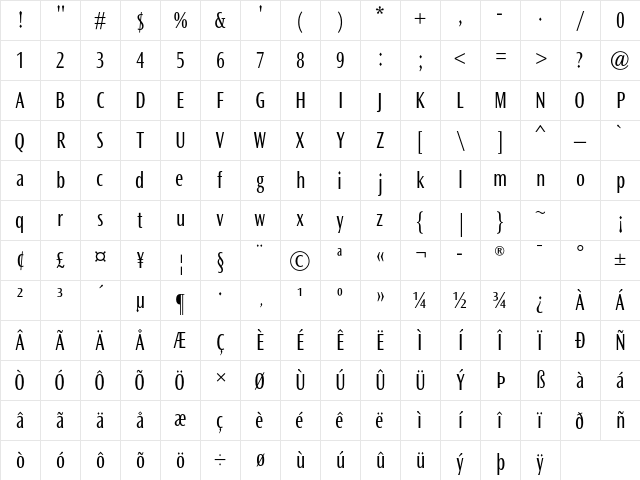
Ocean Sans MT Std Book Cond
Style: Book Cond
Complete Ocean Sans MT Std Book Cond glyph index. Displaying only characters natively supported by Ocean Sans MT Std Book Cond font.
Design Context for Ocean Sans MT Std
Ocean Sans MT Std is a composed and adaptable typeface that performs quietly and consistently across a wide range of design contexts. Its narrow stance lets it pack a punch even in space-constrained designs.